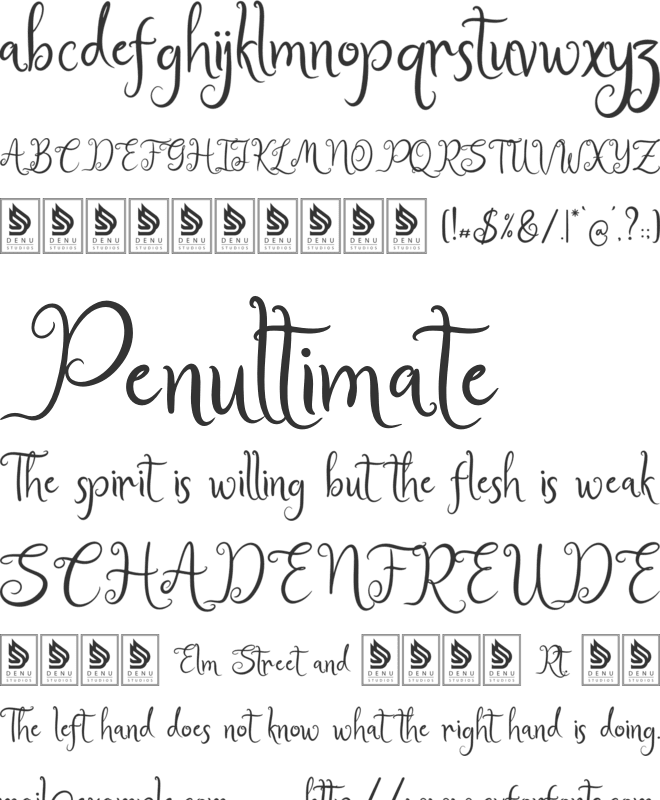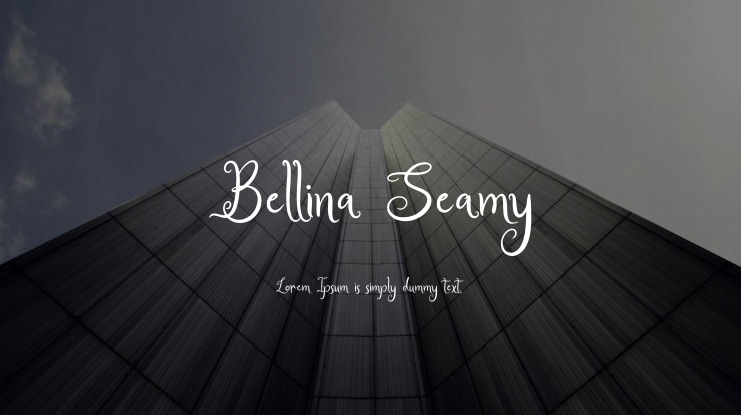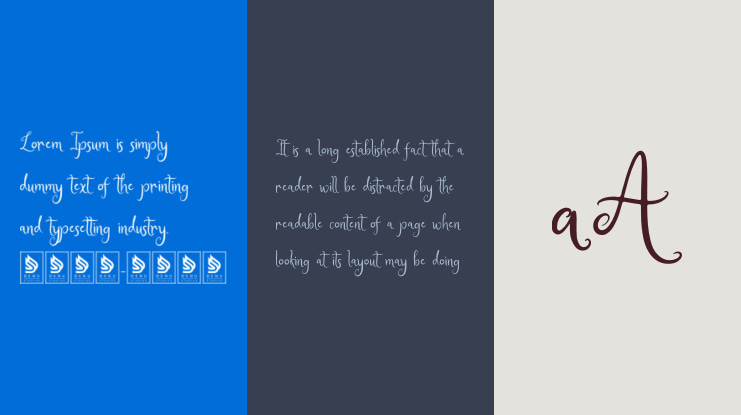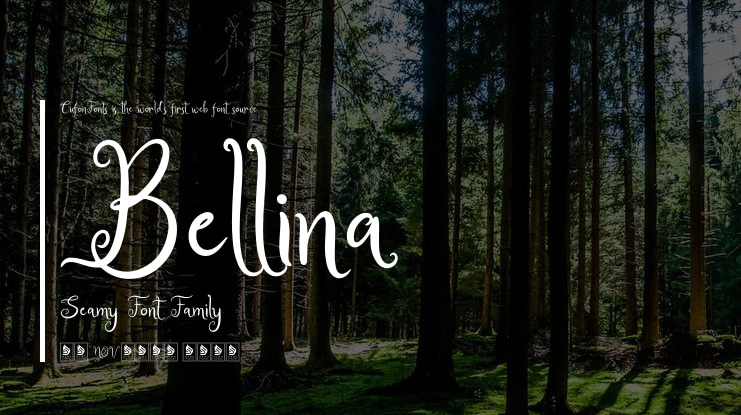
Bellina Seamy | Handwritten Chic Font is perfect for any project, including: logos, branding projects, homeware designs, product packaging, mugs, quotes, posters, shopping bags, t-shirts, book covers, name cards, invitation cards, greeting cards, labels, photography, watermarks, special events, and all your other lovely projects that need a Handwritten Chic Font touch.